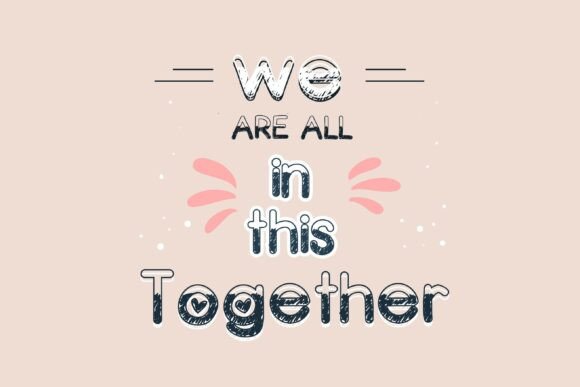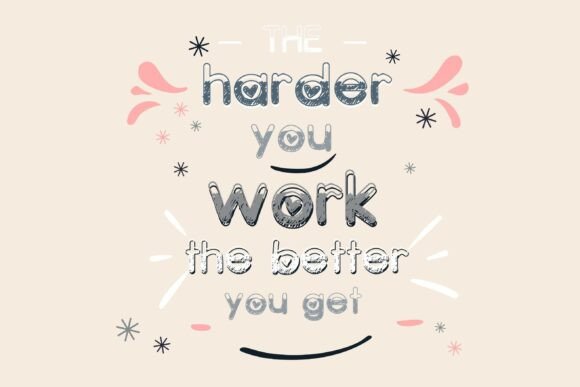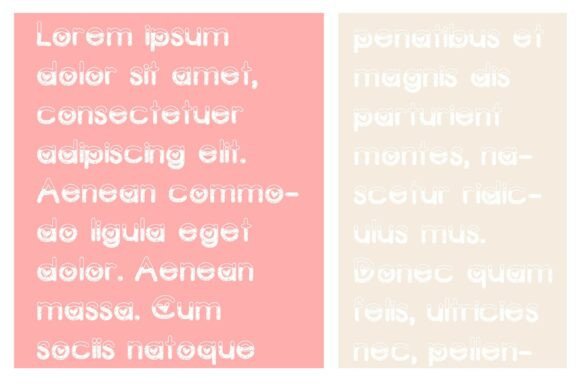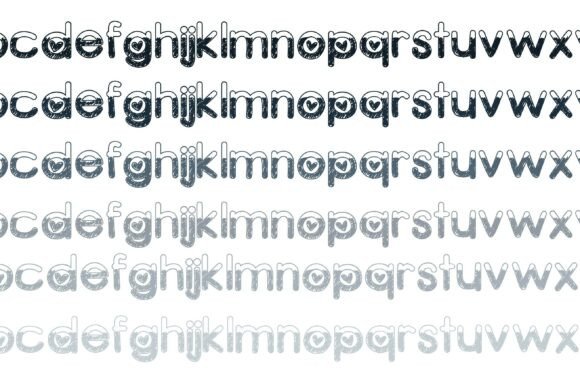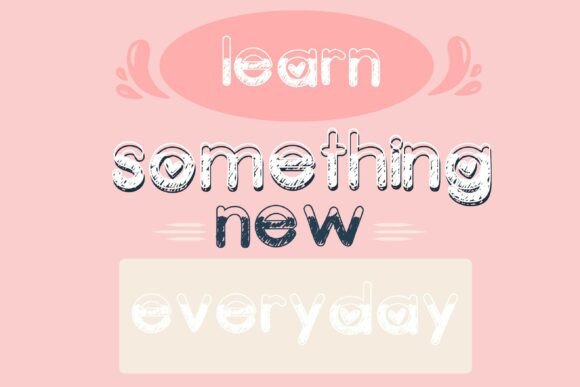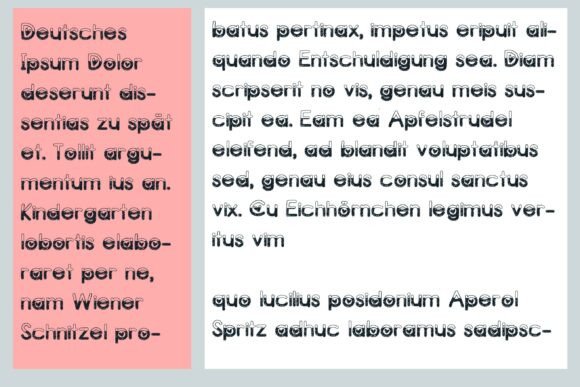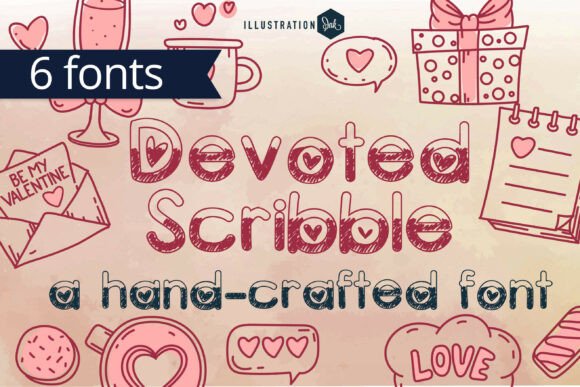
Introducing the Devoted Scribble Font: A Whimsical, Hand-Crafted Treasure
Are you looking for a font that adds a touch of warmth, personality, and whimsy to your designs? Look no further than the Devoted Scribble font, a charming, hand-crafted typeface that overflows with doodles, scribbles, and heartfelt accents. This versatile font is perfect for designers and crafters seeking to create cozy, handmade-inspired designs that feel personal, authentic, and slightly rustic.
A Font with a Personal Touch
The Devoted Scribble font is a true labor of love, featuring a charming, sketch-like texture with heart-shaped “fills” that evoke the nostalgia of drawing in the margins of a diary. This “hand-crafted” font is designed to bring a sense of warmth and personality to your designs, making it perfect for informal invitations, “Be My Valentine” notes, and any project that aims to feel personal and authentic.
Six Unique Variations for Endless Creativity
One of the standout features of the Devoted Scribble font is its versatility. This delightful typeface includes six unique variations, allowing you to mix and match textures to create a truly authentic, hand-drawn look. Whether you’re designing a nursery art piece, a digital sticker, or a cozy branding element, the Devoted Scribble font offers endless creative possibilities.
Perfect for Layered Designs
The Devoted Scribble typeface works exceptionally well in layered designs, especially when combined with watercolor textures or hand-drawn doodles. This font is designed to be imperfect, with a “perfectly imperfect” aesthetic that adds to its charm. When paired with other textures and design elements, the Devoted Scribble font creates a unique, eye-catching look that’s sure to capture attention.
Use Cases for the Devoted Scribble Font
So, what can you create with the Devoted Scribble font? The possibilities are endless, but here are a few ideas to get you started:
• Informal invitations, such as birthday party invites or wedding announcements
• “Be My Valentine” notes and other love-themed designs
• Nursery art and children’s illustrations
• Digital stickers and planners
• Cozy branding elements, such as logos and packaging design
Why Choose the Devoted Scribble Font?
With so many fonts available, why choose the Devoted Scribble font? Here are just a few reasons why designers and crafters love this charming typeface:
• Unique texture: The Devoted Scribble font features a one-of-a-kind texture that’s both whimsical and charming.
• Versatility: With six unique variations, you can mix and match textures to create a truly authentic look.
• Handmade feel: This font is designed to evoke the feeling of handmade, hand-drawn designs.
• Perfect for layered designs: The Devoted Scribble font works beautifully with other textures and design elements.
Get Creative with the Devoted Scribble Font